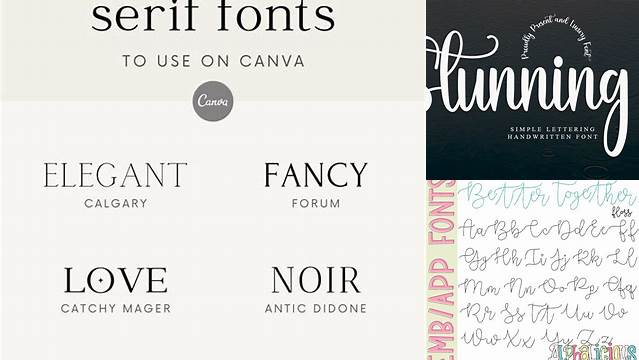
Free Lettering Fonts: Stunning Typography For Your Projects
Hey guys! If you're a creative soul, a design enthusiast, or just someone who loves a good-looking font, you've come to the right place! Today, we're diving headfirst into the awesome world of free lettering fonts. Finding the perfect font can totally transform your designs, making them pop and grab attention. Whether you're working on a personal project, a client gig, or just want to spice up your social media, the right font is key. We'll explore a bunch of amazing free font resources, share tips on how to pick the best fonts, and give you some inspiration to get those creative juices flowing. So, buckle up, because we're about to embark on a journey through a sea of incredible lettering fonts, all available at zero cost! Get ready to level up your design game without breaking the bank. Ready to get started?
The Power of Free Lettering Fonts
Choosing the right free lettering fonts is like finding the perfect outfit – it can completely change the vibe of your project! Typography is so much more than just putting words on a page; it's an art form that can set the mood, convey a message, and make your work truly stand out. With the right font, you can capture attention, express personality, and create a lasting impression. Imagine trying to promote a fun summer event with a serious, formal font, or designing a sophisticated brand with a playful, childish one. See what I mean? It's all about the details. Free lettering fonts are especially awesome because they make high-quality typography accessible to everyone. You don't need a huge budget to create visually stunning designs. There's a treasure trove of amazing fonts available for free, covering a wide range of styles. From elegant calligraphy to bold, modern designs, there's a font out there for every project. This means that everyone has the power to make beautiful designs without any financial barrier. You can explore different styles, experiment with unique combinations, and develop your design skills without any pressure or cost. Plus, using free fonts gives you the freedom to try new things, learn what works best for you, and develop your own unique design aesthetic. Whether you're a seasoned designer or a complete newbie, you can use free lettering fonts to make your projects look super professional and unique. So, don't be afraid to dive in and explore the endless possibilities – the perfect font is waiting for you!
Moreover, using free lettering fonts lets you stay ahead of trends and experiment with styles without having to invest in expensive software or premium fonts. The constant release of new free lettering fonts means that there's always something fresh and exciting to try. By staying up-to-date with the latest font trends, you can keep your designs looking modern and relevant. This also allows you to learn about typography, explore different design techniques, and develop a deeper understanding of how fonts can impact your audience. The more you experiment with fonts, the better you'll become at recognizing what works well and what doesn't, helping you improve your design skills. In addition, the use of free lettering fonts is perfect for learning and practicing design. Designers can create their own portfolio and improve their style. And can practice their skills, learn how to use font combinations, and understand the nuances of typography. This is also great for creating unique designs that reflect your personal style. Having access to a wide selection of fonts allows you to experiment and develop a distinctive design approach. To sum up, free lettering fonts give you the tools and opportunity to create striking, stylish designs without the financial commitment. Whether you're a pro designer or just starting, free lettering fonts provide the resources and opportunity to realize your creative vision.
Where to Find Amazing Free Fonts
Alright, let's get down to business: where do you actually find these amazing free lettering fonts? There are a ton of awesome resources out there, each with its own unique offerings. Knowing where to look can save you tons of time and make your font-hunting experience a breeze. Here's a breakdown of some of the best places to score those freebies:
- Google Fonts: This is, like, the ultimate hub for free fonts. Google Fonts has a massive library of open-source fonts that are super easy to use. You can download them or embed them directly into your website, making it a fantastic choice for web design. The collection is incredibly diverse, featuring everything from classic serifs to modern sans-serifs and everything in between. Each font is also available with different weights and styles. So, you have lots of flexibility to make your designs perfect. Plus, the platform has great search filters, letting you narrow your choices based on the type of font, the language support, and the various properties you are looking for.
- Font Squirrel: Font Squirrel is another great resource for finding high-quality, free fonts. They are very careful about the fonts they offer, which makes sure that everything is of top quality and license-friendly. They also have a handy font identifier tool. If you come across a font you like, but don't know the name of it, you can upload an image of the font. The tool will try and figure it out for you. This is super useful for identifying fonts you see in the wild.
- Creative Market: Creative Market is known for its marketplace of design assets, including fonts. They often have freebies, so you can find great deals. Keep an eye out for their free design of the week or month. Just remember to check the terms of use, because licenses can vary. These sites are a great way to find high-quality free lettering fonts to add to your collection.
Choosing the Right Font for Your Project
Okay, now that you know where to find these amazing free lettering fonts, let's talk about how to pick the right one for your project. It's a critical step, because the font you choose can make or break your design. Here's a step-by-step guide to help you make the perfect pick:
- Understand Your Project: First things first, what are you trying to achieve? Is it a website, a poster, a logo, or something else? What's the message you want to convey? Knowing the purpose of your project is super important. Because this will determine what the font should be. For example, a playful font might be perfect for a children's brand, but it won't cut it for a law firm. You should also take into account your target audience. Who are you trying to reach? What kind of font do they like? Tailoring your font choice to your audience helps you connect with them on a deeper level.
- Consider Font Styles: There are so many font styles out there, but here's a quick rundown of the main ones:
Conclusion: Unleash Your Creativity with Free Fonts
So, there you have it, guys! A deep dive into the world of free lettering fonts. We've covered the best places to find them, how to choose the perfect font, and tips for using them effectively. Remember, typography is a powerful tool that can transform your designs. With a little knowledge and a lot of creativity, you can create stunning visuals without spending a dime. Don't be afraid to experiment. Test out different fonts, play with different styles, and see what works best for you. The best designs are always the ones that reflect your unique personality and vision. Now go out there and start creating! And remember, the perfect font is just a download away! Happy designing!